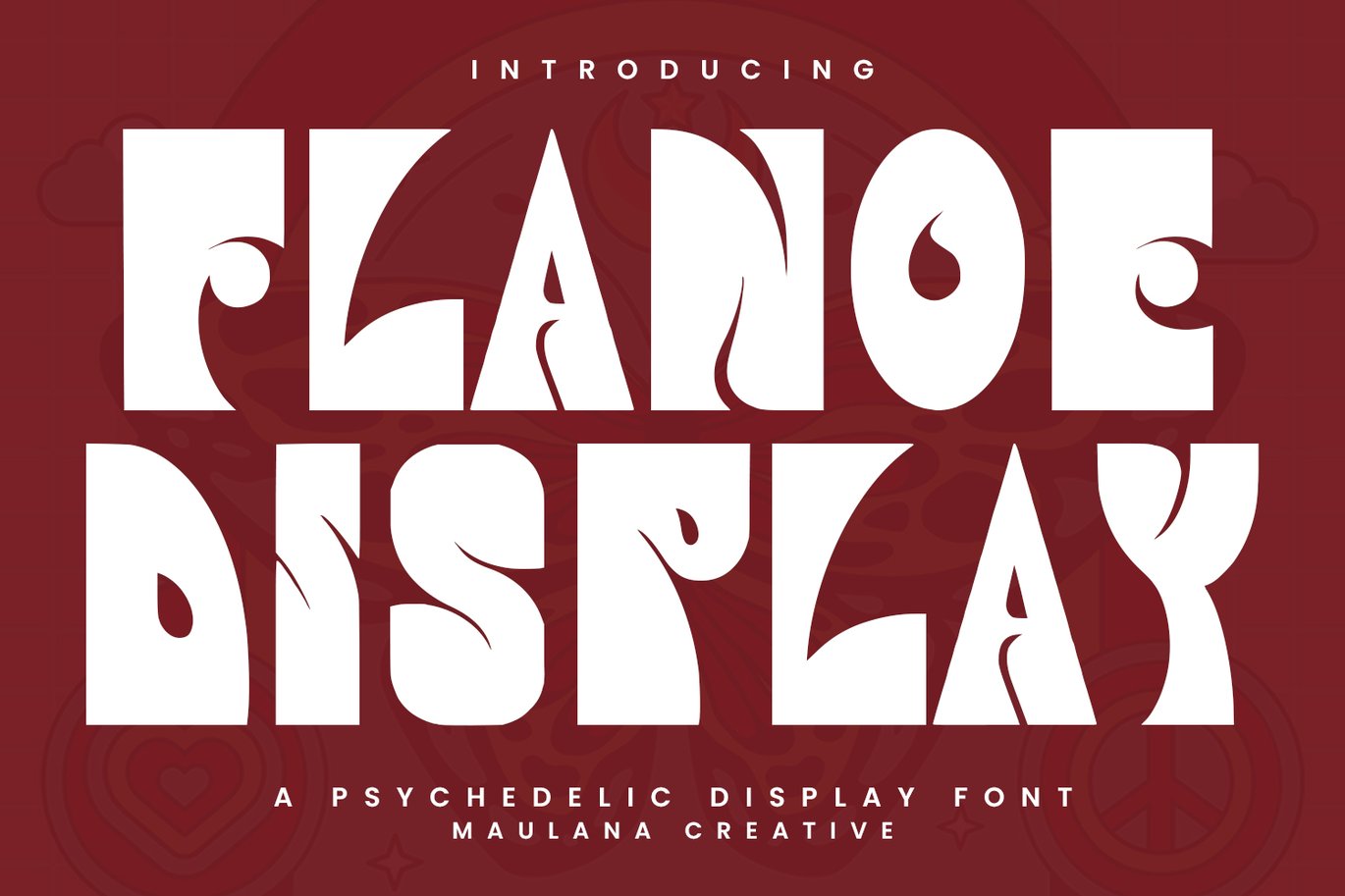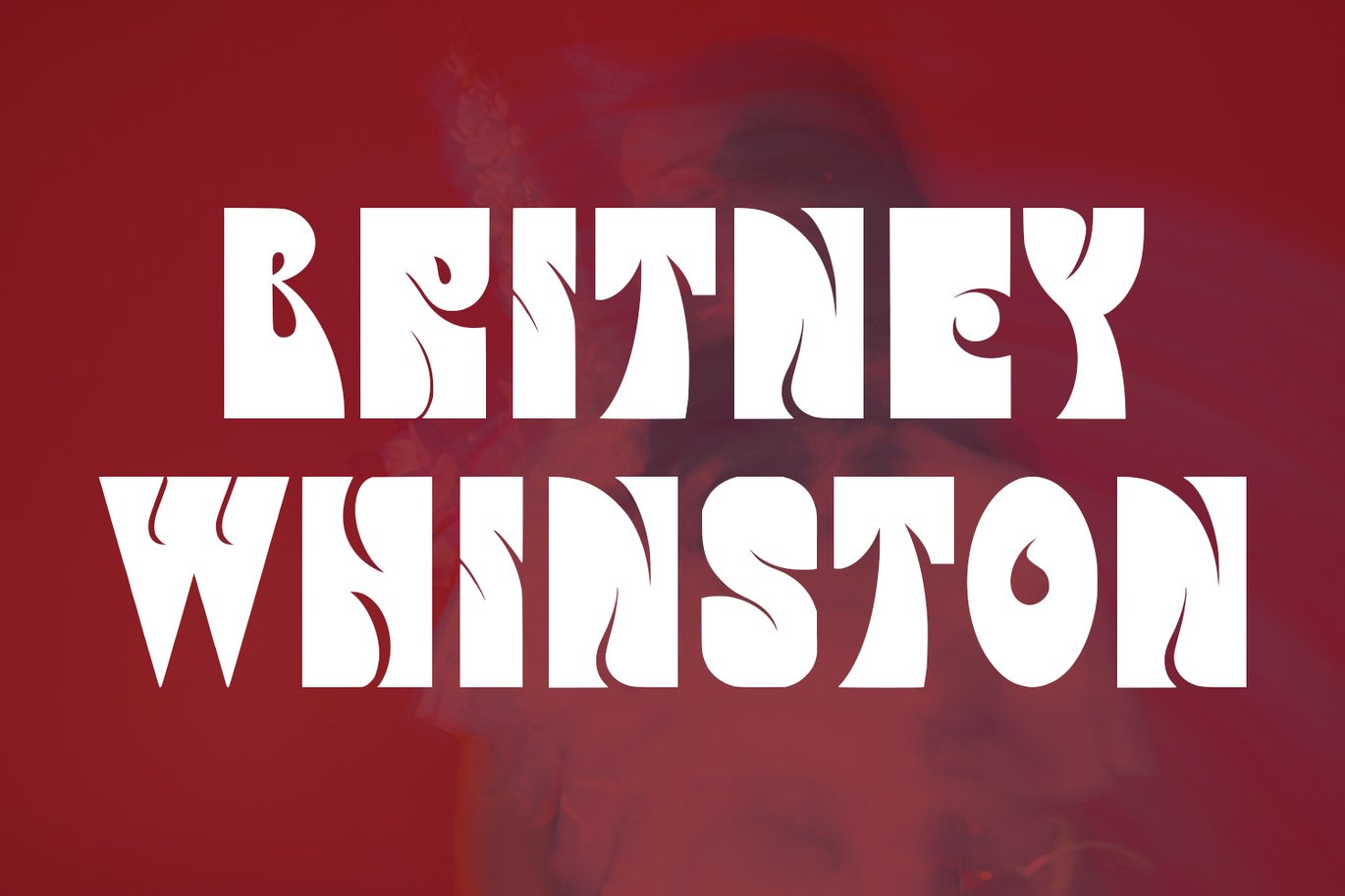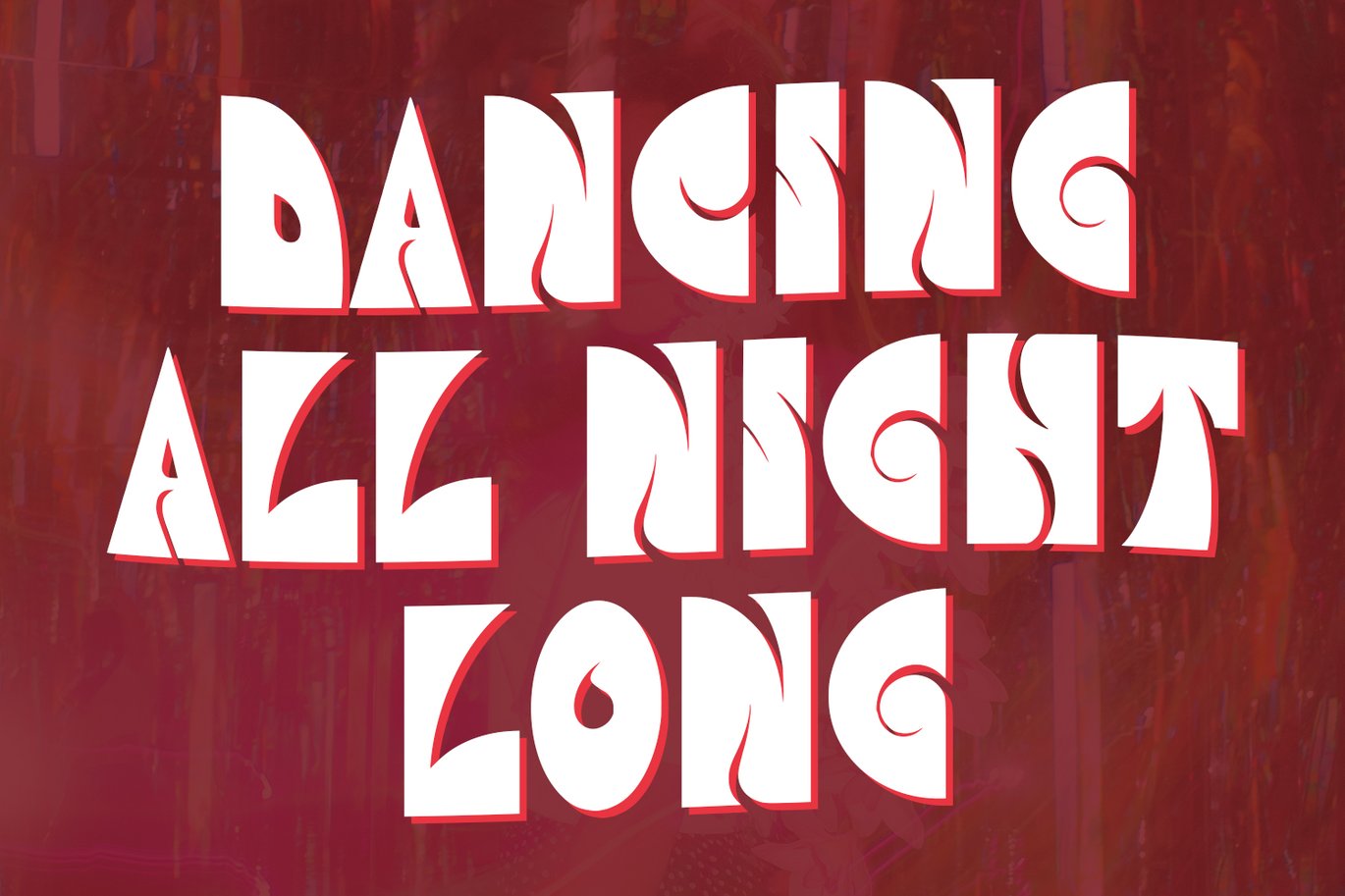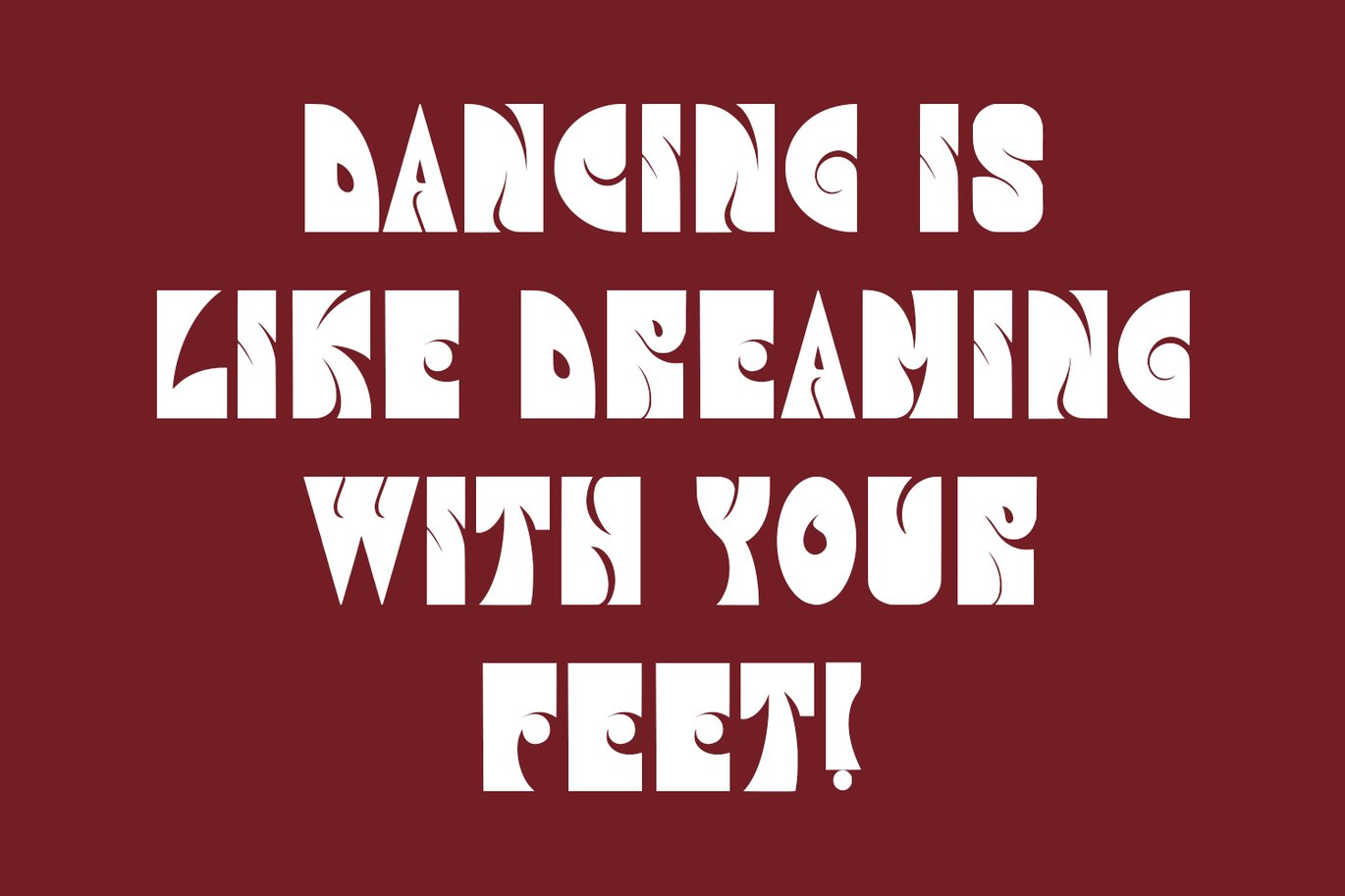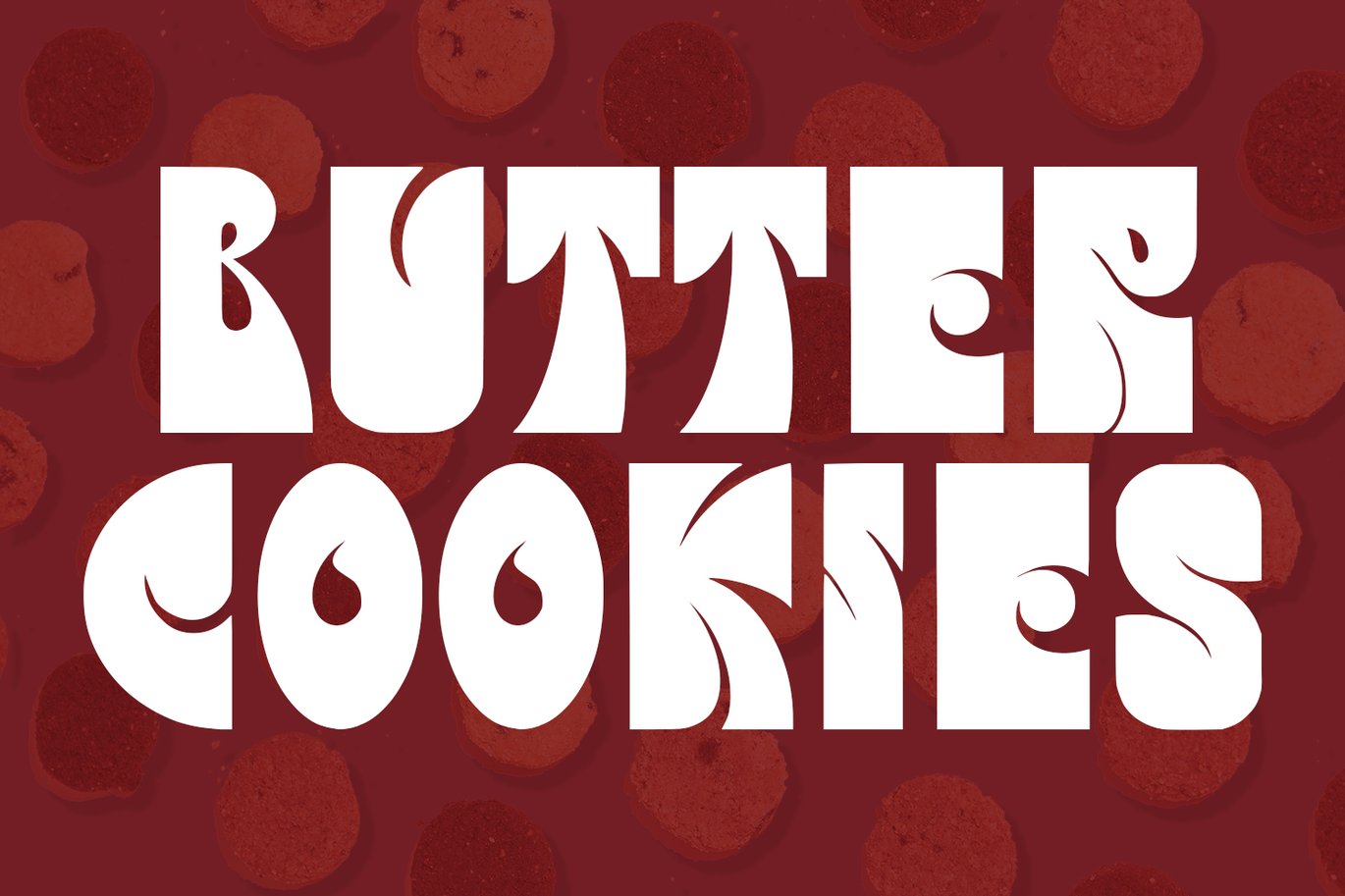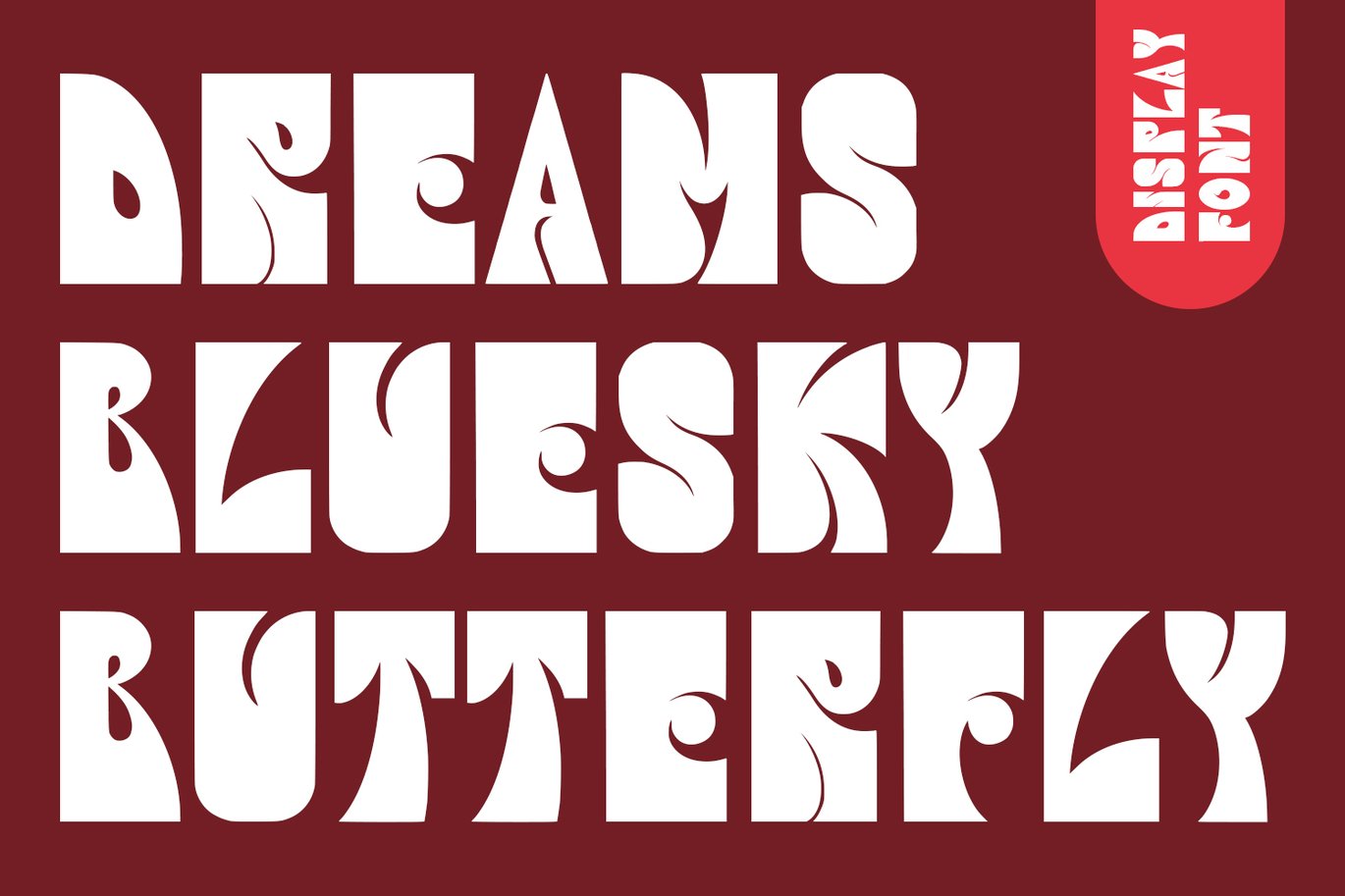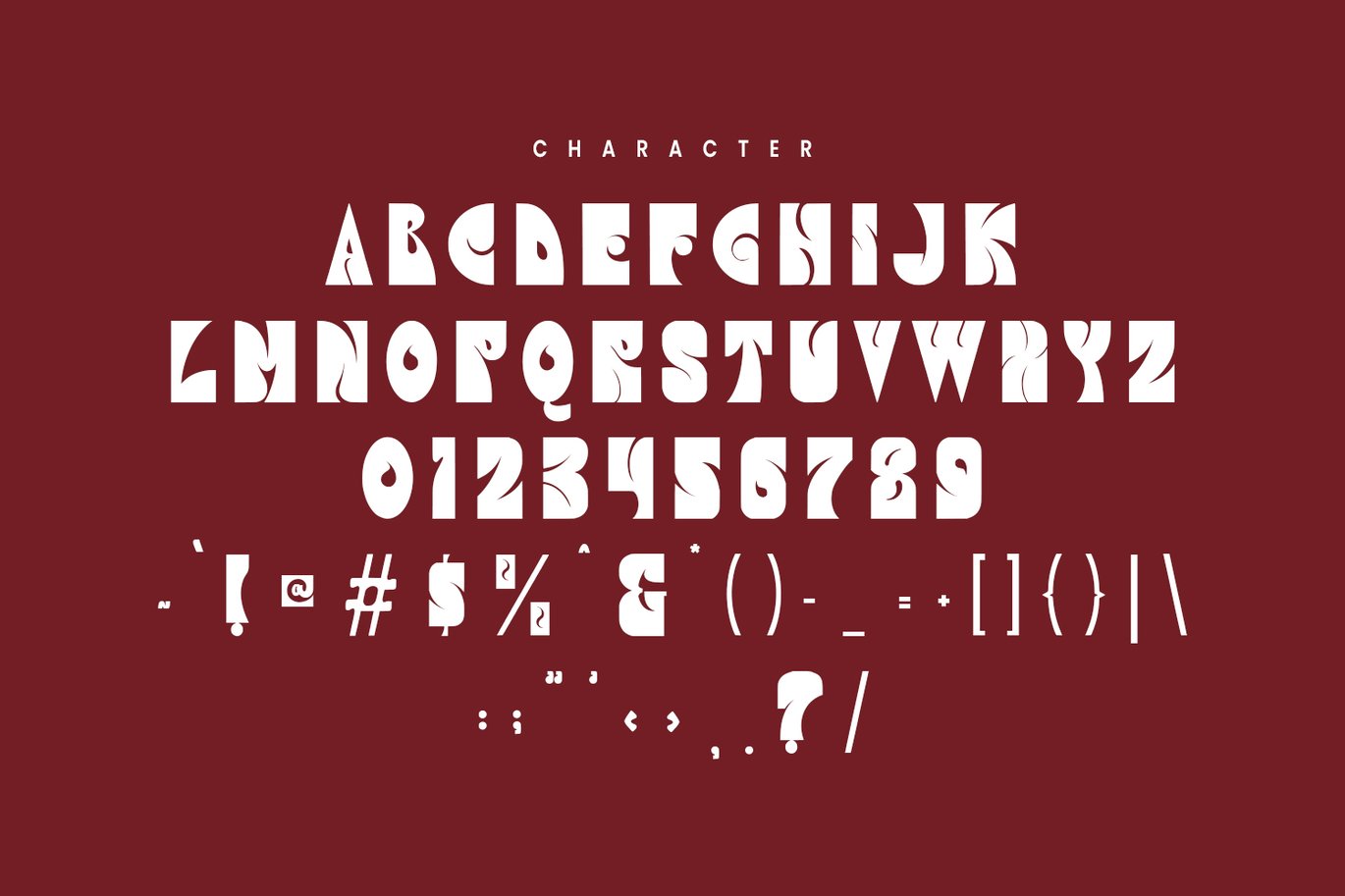
Flanoe Psychedelic Font
Flanoe psychedelic font. Heavy stroke and vintage character. To give you an extra creative work. Flanoe psychedelic font support multilingual language. This font is good for logo design, Social media, Movie Titles, Books Titles, a short text even a long text letter and good for your secondary text font with script or serif. Make a stunning work with Flanoe psychedelic font.